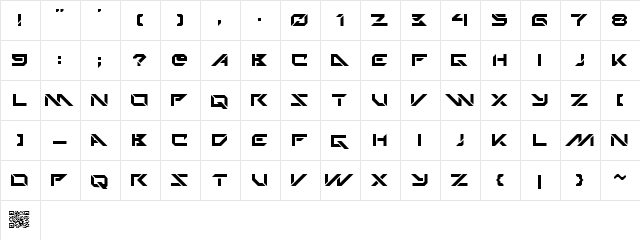
Techno Hideo Regular
Design Context for Techno Hideo Typeface
Techno Hideo has a distinctly futuristic character, with geometric precision and clean angles that feel at home in technology, gaming, and sci-fi contexts.
Pro Tip: Use Techno Hideo in combination with a neutral sans for body text. Let it define the brand voice in headlines while keeping reading comfortable elsewhere.